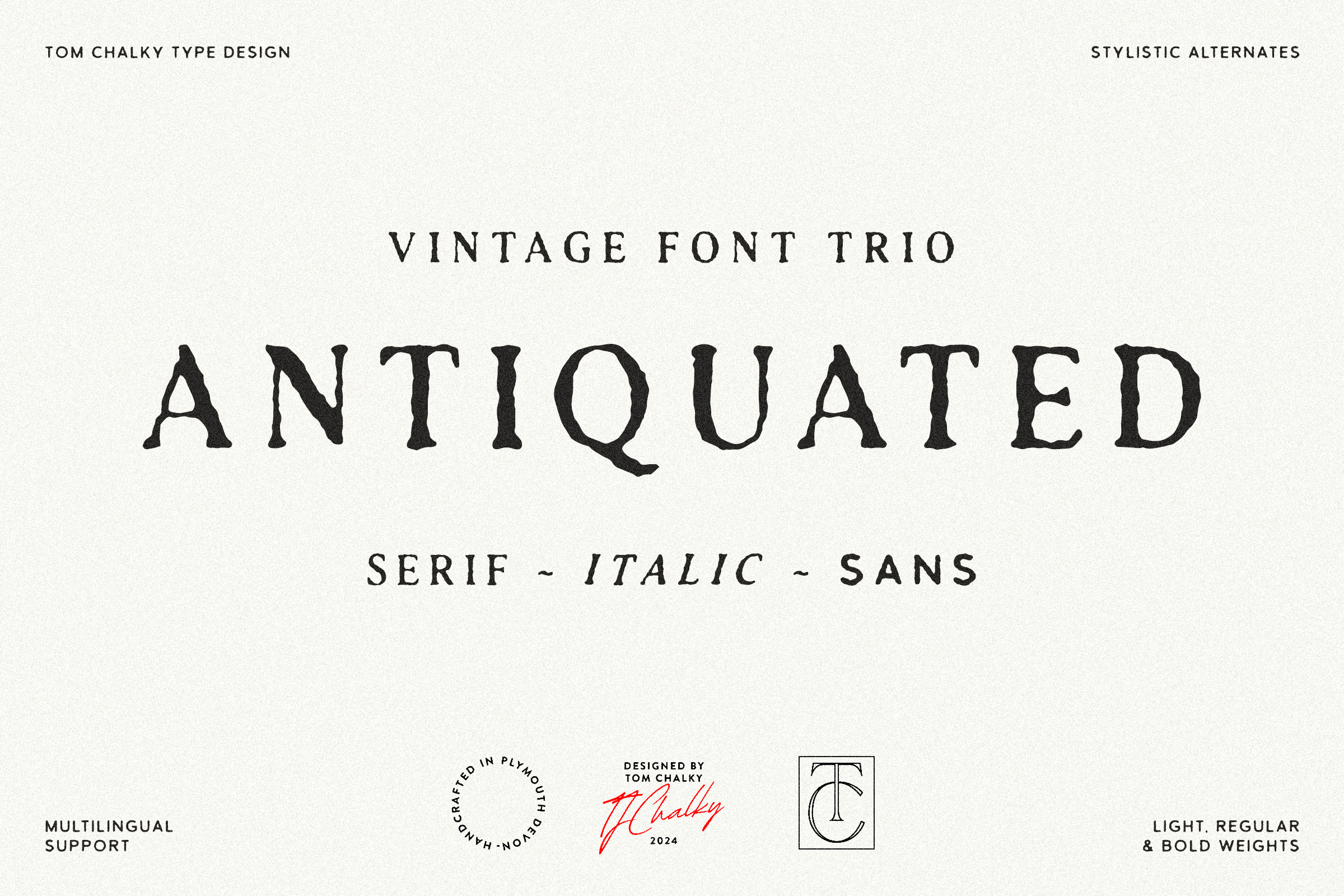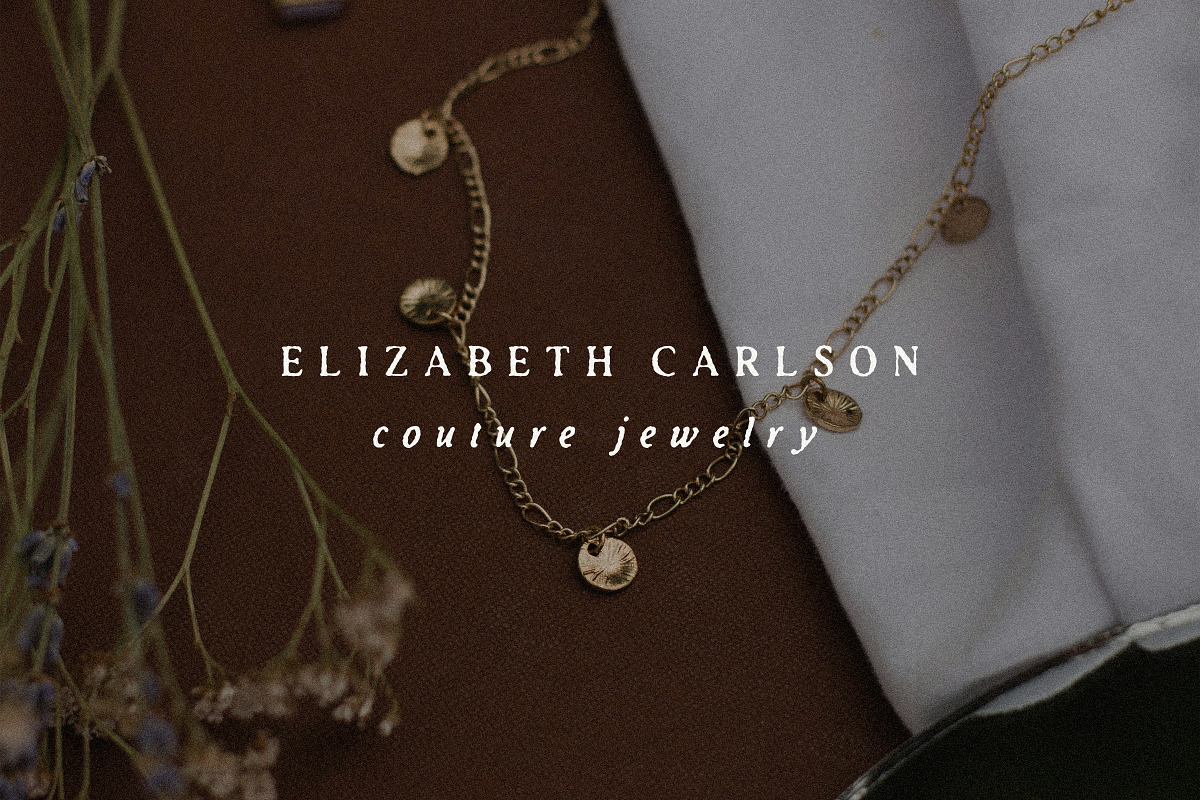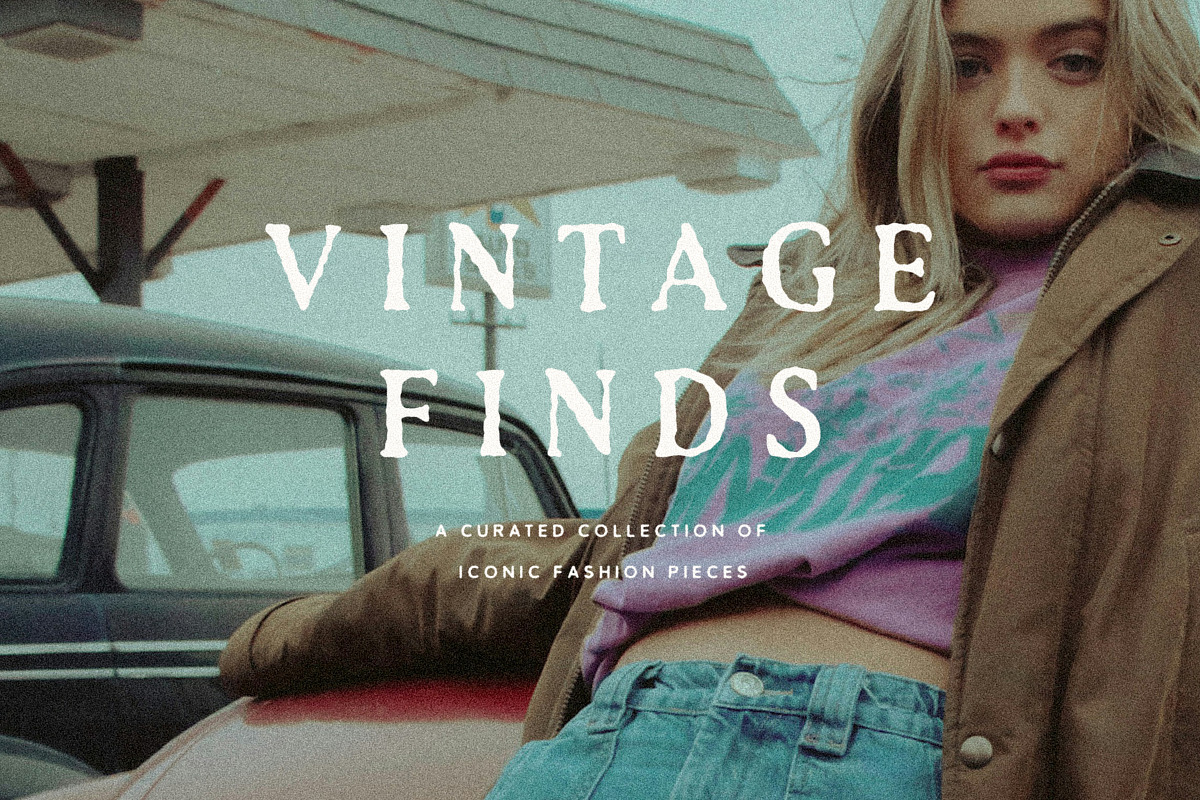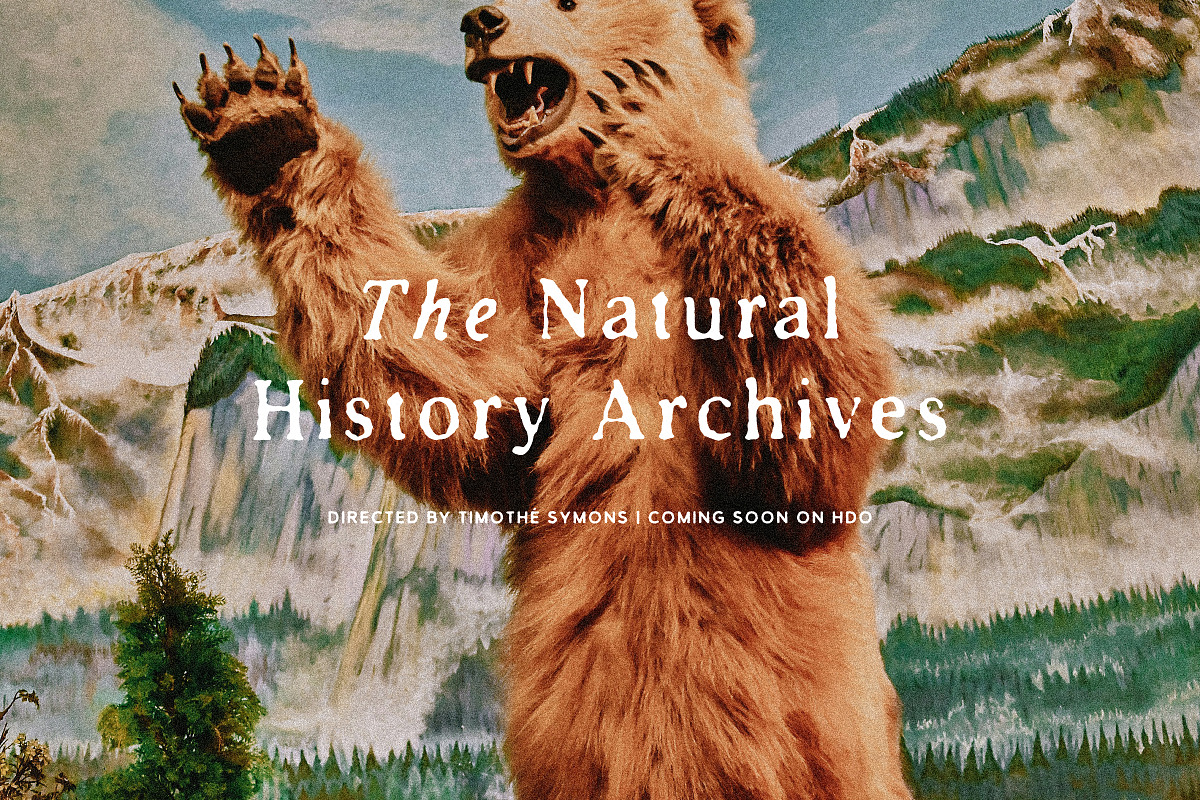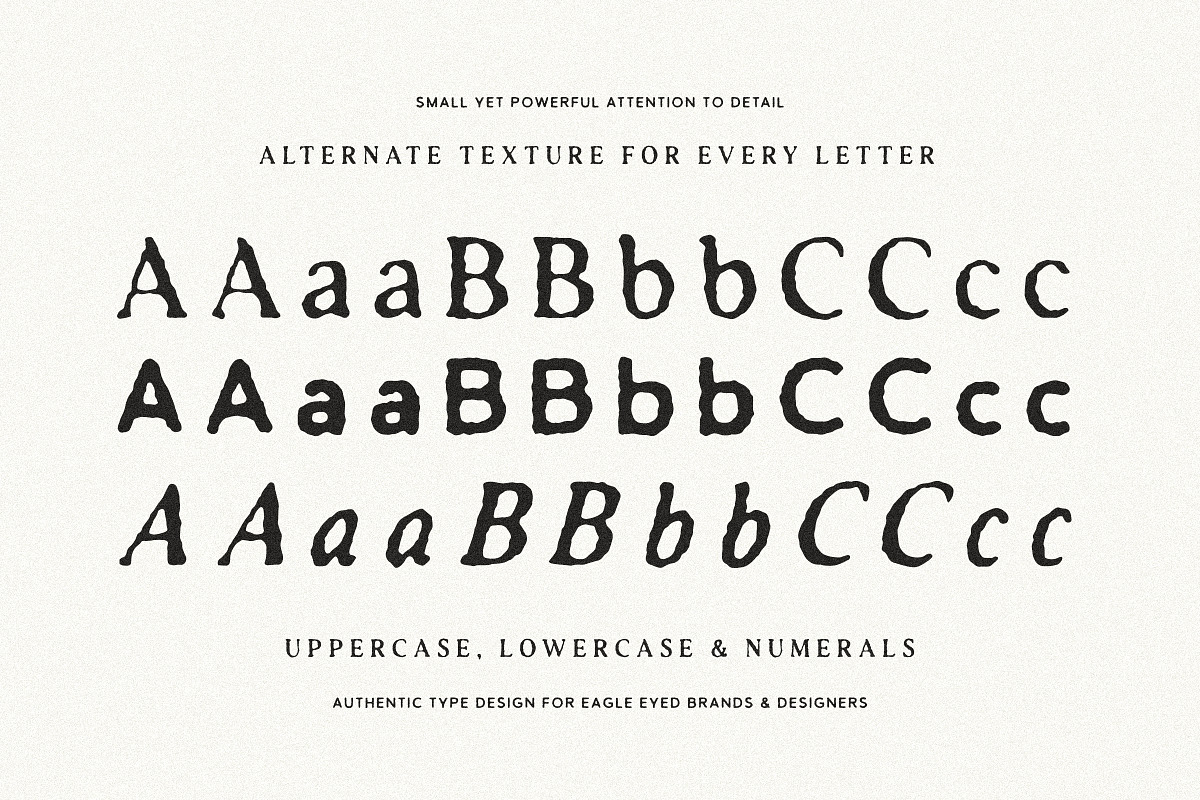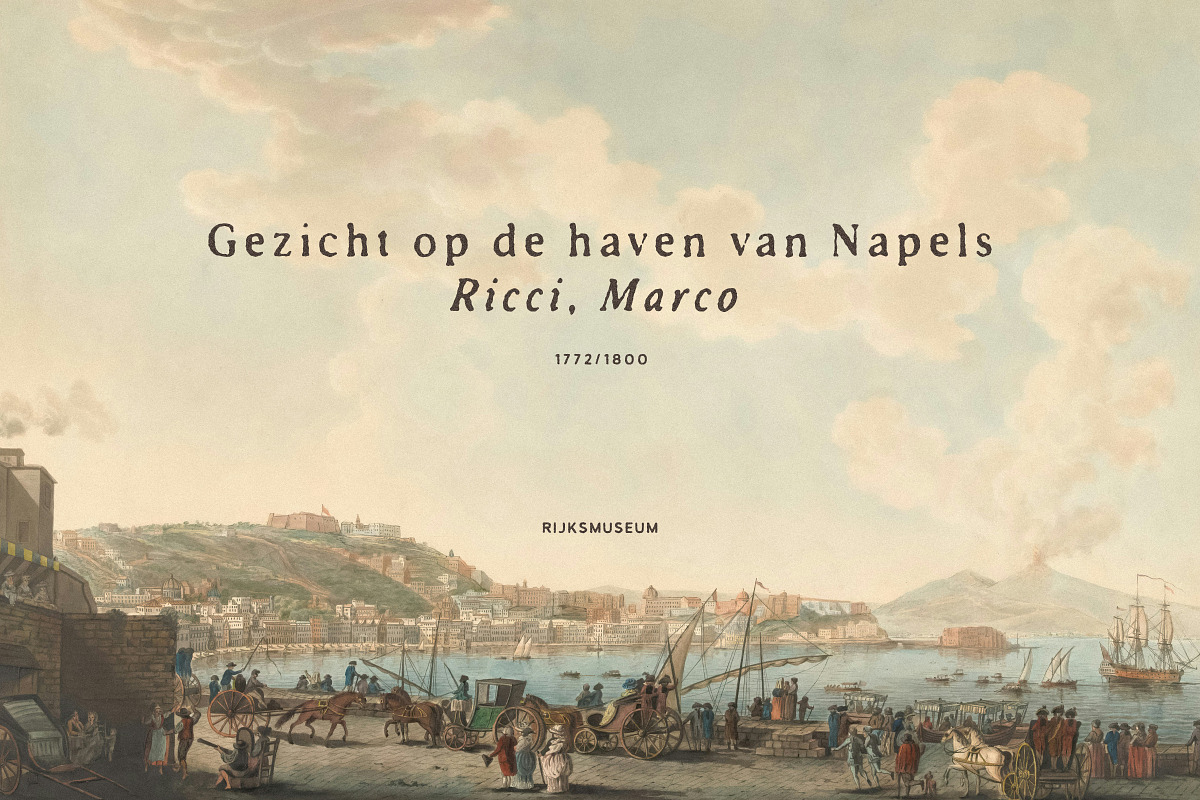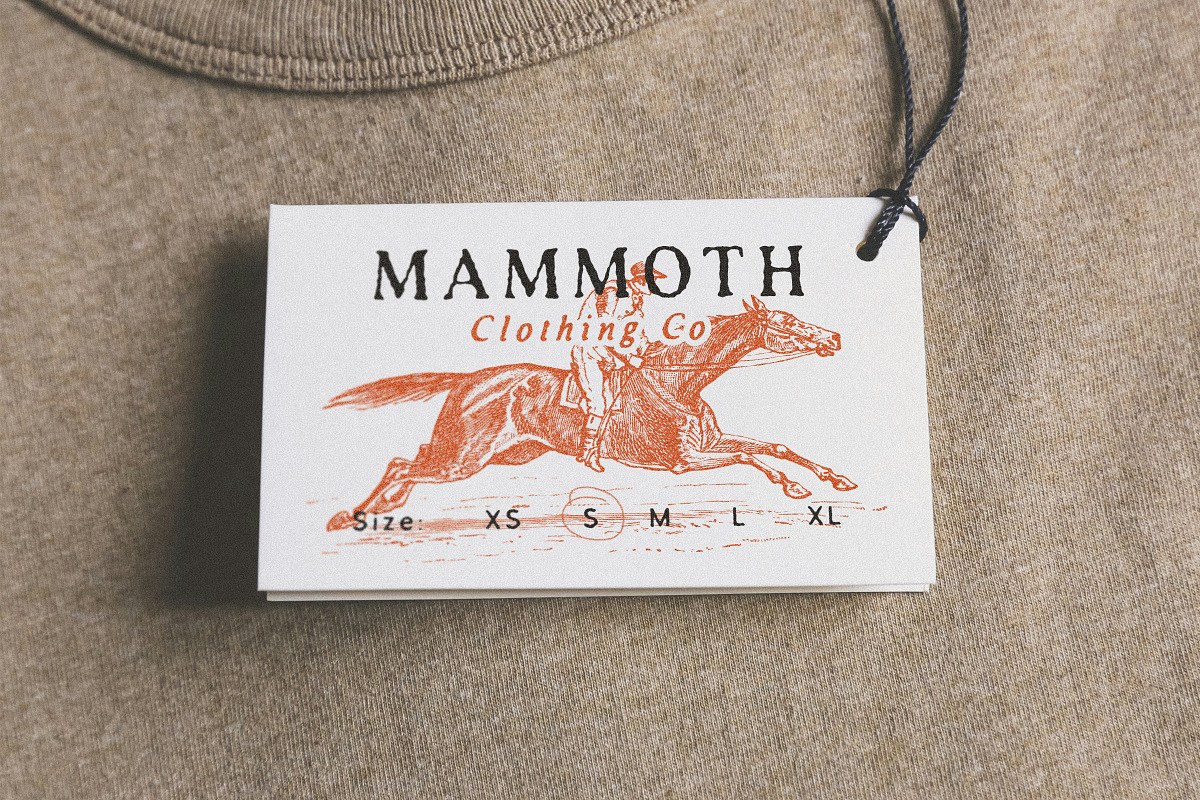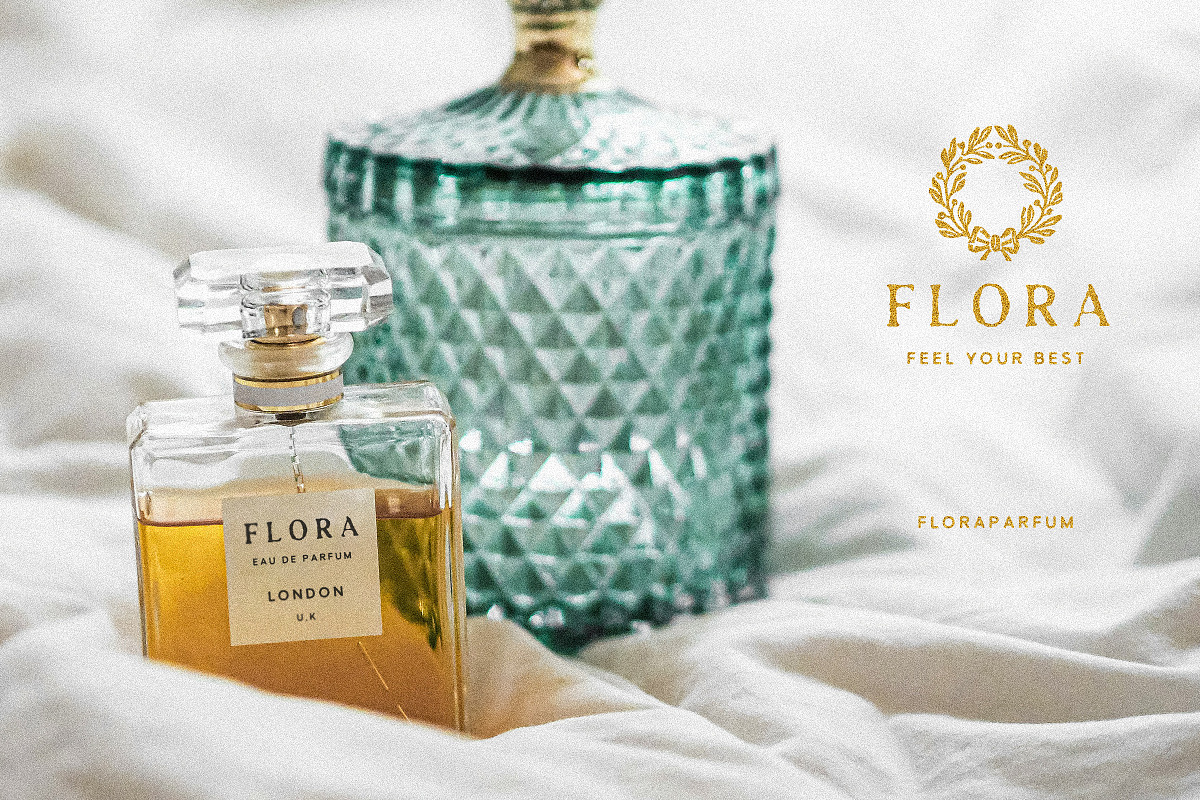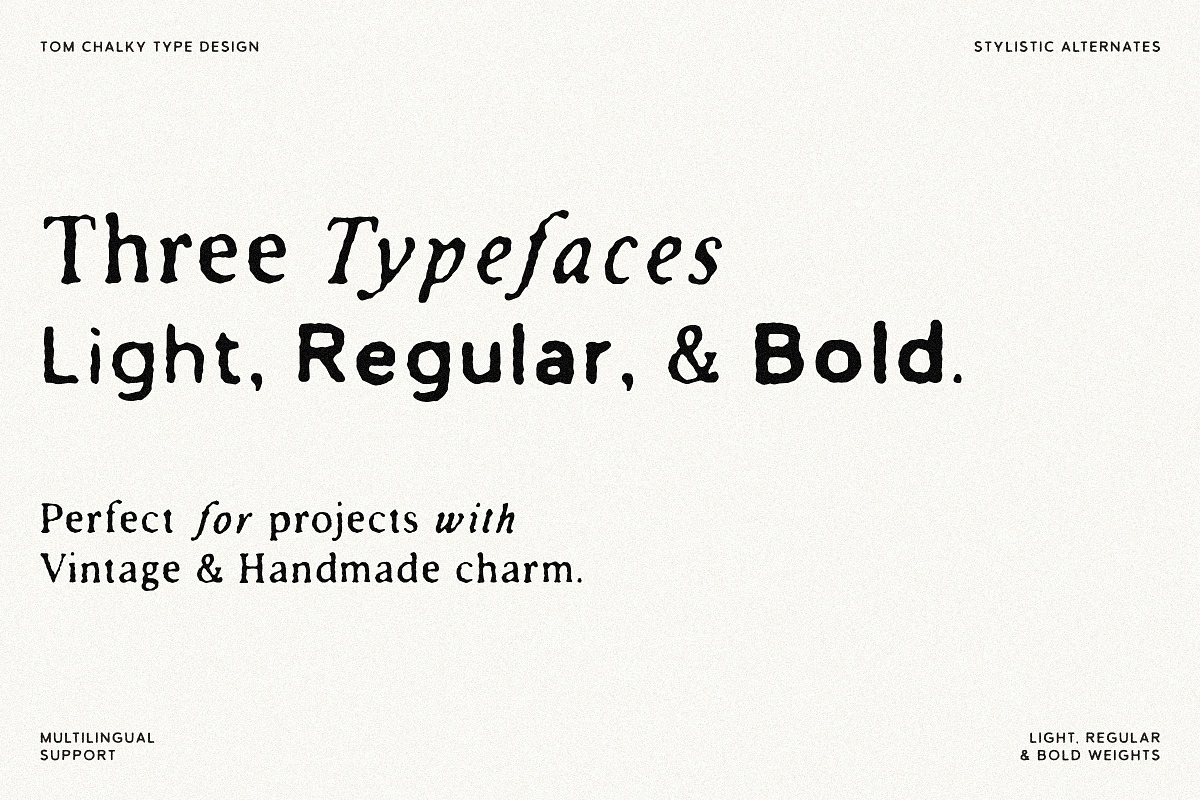
Antiquated Font Pack (Serif & Sans!)
Introducing the TC Antiquated vintage-inspired font collection! This versatile trio of typefaces, each available in three distinct weights, has been designed to be a wonderful blend of modern and rustic styles.
This collection is ideal for modern branding projects with a vintage twist, rustic wedding invitations and stationery, history-themed design projects, and editorial work! I especially enjoy using these fonts in smaller sizes with wide spacing as displayed throughout the presentation imagery.
Quick Overview:
- 9 Fonts
- Includes Sans-Serif, Serif, and Serif Italic styles
- Available in Light, Regular, and Bold weights
- Features stylistic alternates for A-Z and 0-9 for added authenticity